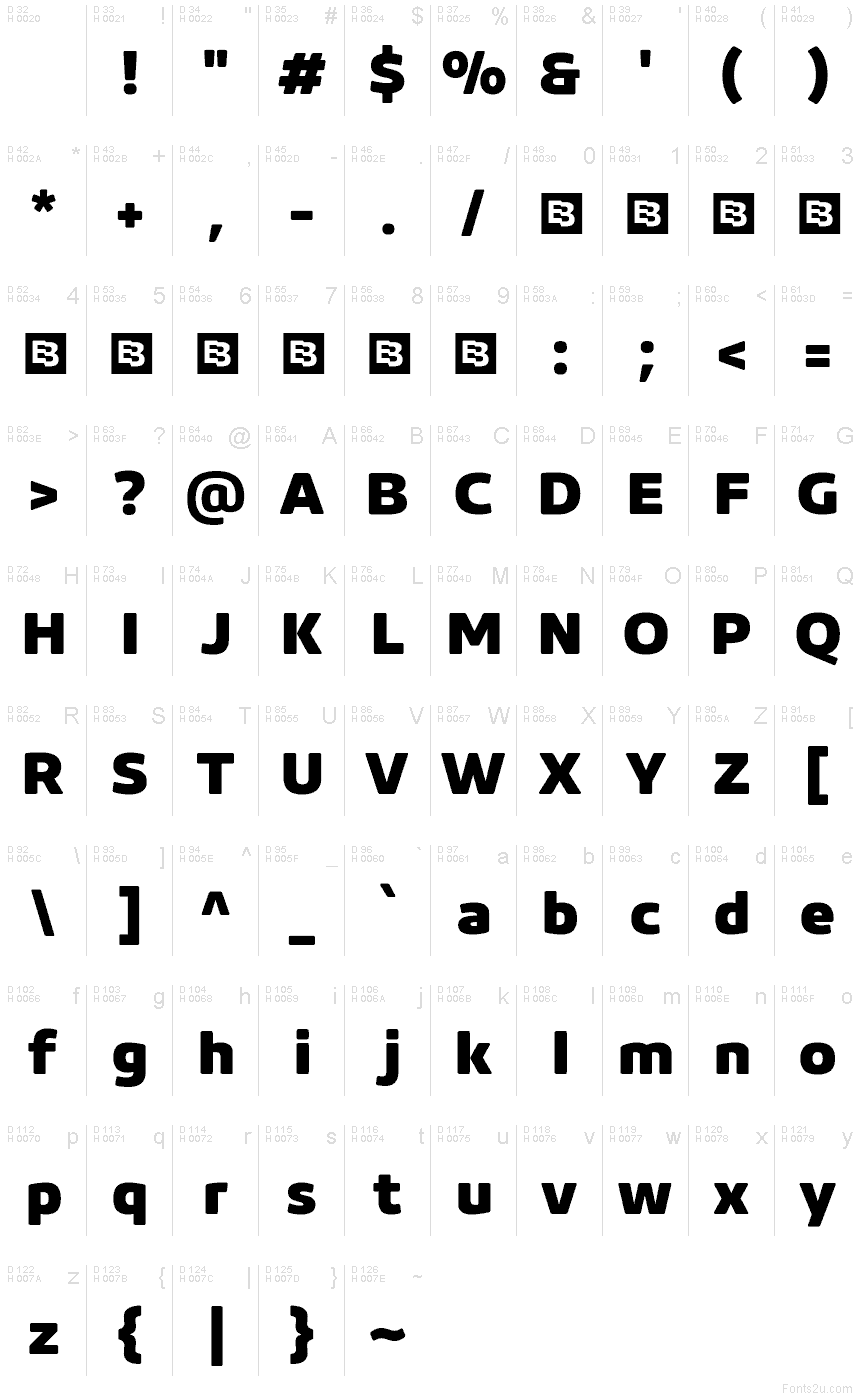
Digiva Trial Black
Digiva Black font by Eko Bimantara is a bold, modern sans serif with heavy geometric forms and clean, uniform thickness. It’s an attractive typography design with a simple appearance in its uniformity and lack of decoration. If you need your business or project to look modern but with the strength of traditional letters, this free bold font is for you.
Apply it in social media platforms to attract more followers and in advertising to create eye-catching designs that stick with them. Make use of it product packaging, mobile apps banners, magazine headlines, brochure covers, or branding projects.